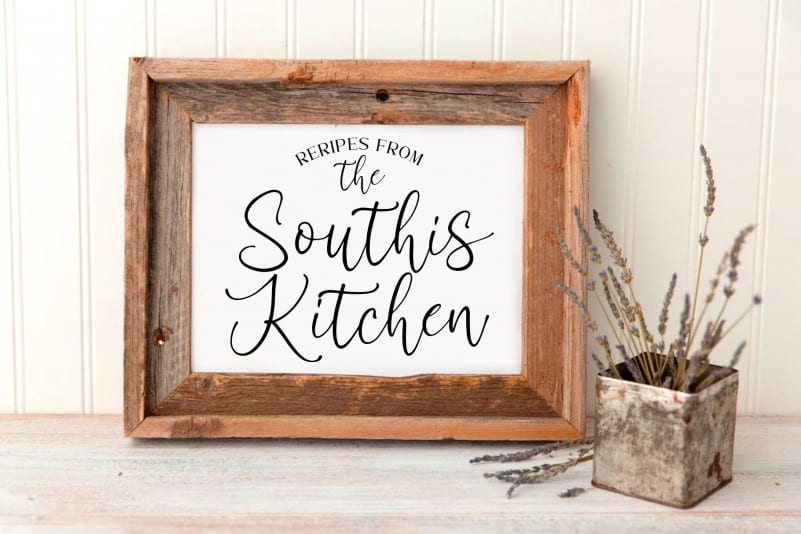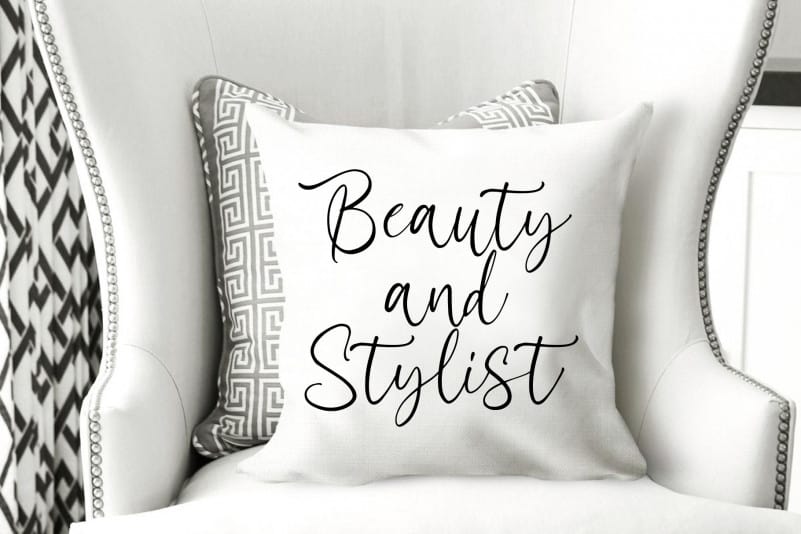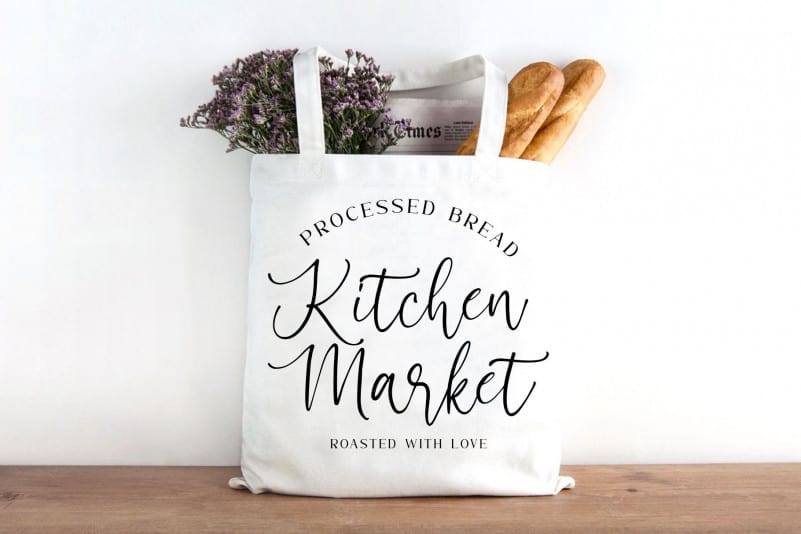
Sechillia Ruster – Handwritten Font
Introducing new fonts Southgirl Handwritten Font are Hanwritten fonts with pentel-style brushpen textures that you can use to enhance your work.
Southgirl Handwritten Font is available in 3 different types of lowercase letters, you can change it as you wish to create a unique style when several characters of the same letter meet. and this will be an advantage to make your writing really like handwriting.
Southgirl handwritten font you can use for various projects such as stationery invitations, social media, logos, weddings, branding, graphic designs with the addition of a few ligature and swash. and can be combined with various types of serif fonts to perfect the project you want to work on